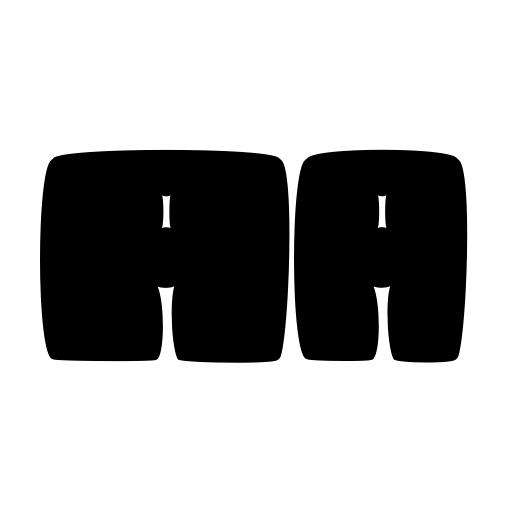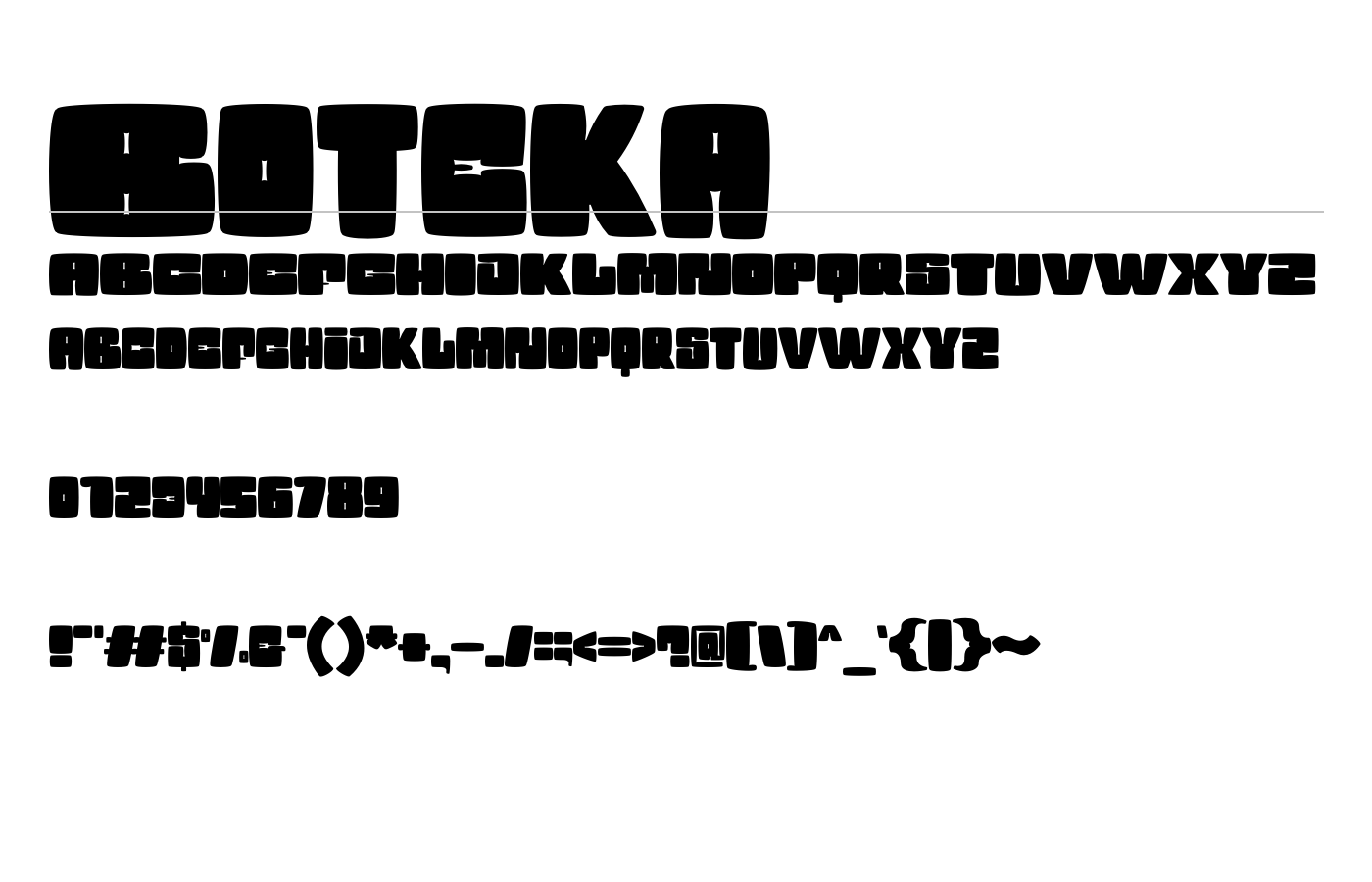
Boteka is a bold, playful sans serif font with a chunky, wide stance and softly rounded edges. Its heavy weight and uniform stroke give it a strong, approachable presence, making it ideal for eye-catching headlines, logos, or creative projects that want to convey fun and confidence. This font works well in display uses where a quirky, contemporary vibe is desired.
Boteka Font
About Boteka Font